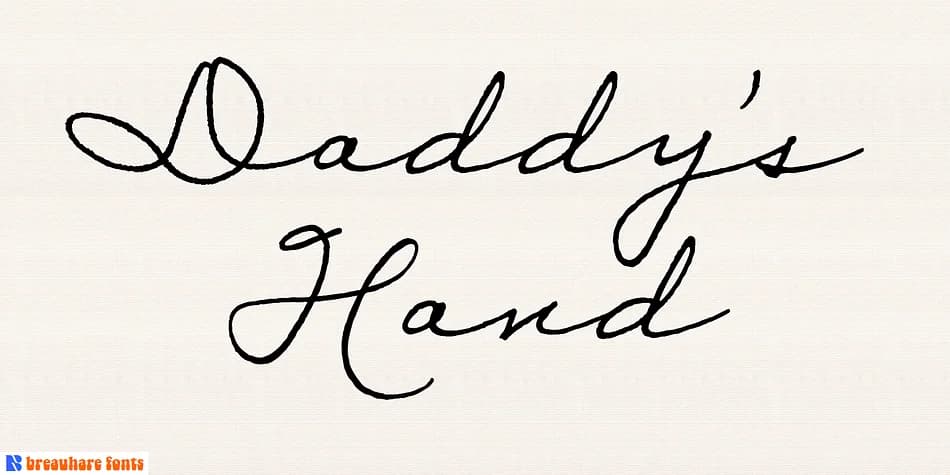
Daddy's Hand by Breauhare Fonts captures the flowing, confident strokes of genuine handwriting, with each letterform retaining the natural rhythm of a pen moving across paper. The script flows with an organic elegance that feels both personal and polished, making it stand out among digital fonts that often feel stiff by comparison.
This handwritten typeface works exceptionally well for projects where authenticity matters. Wedding invitation suites benefit from its genuine warmth, and the same quality translates beautifully to stationery design, custom greeting cards, and luxury branding applications. Small businesses use it for boutique cosmetics packaging and artisan product labels on platforms like Etsy, where that handmade quality signals care and craftsmanship. It's equally at home on personalized gift tags, wine labels, or the cover of a self-published journal. For digital applications, the consistent letterforms render cleanly across different sizes without losing their character.
The script works particularly well for anyone seeking a human touch without the inconsistency that actual handwriting brings. Whether designing for high-end stationery, product packaging, or special event materials, Daddy's Hand delivers the warmth of personal handwriting with professional reliability. It's a strong choice for designers and small business owners who want their work to feel thoughtful and individually crafted. You can find Daddy's Hand on Creative Fabrica, where it fits nicely into lettering-focused collections.
- Elegant, Flowing
Daddys Hand Font is a script font that shines as a display or heading face. Pair it with a clean sans-serif or serif font for body text β the contrast creates a clear hierarchy while the two styles stay balanced and easy to read.